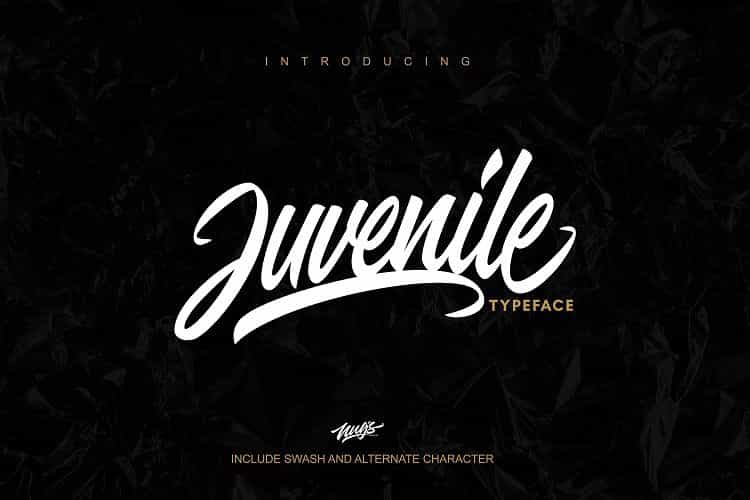
Discover Juvenile Script Font, part of the Brush Calligraphy collection—a versatile and unique font perfect for adding a personal touch to your projects. Download it for free and enjoy crafting designs with style, from invitations to social media posts. This font is available exclusively for personal use, giving you the freedom to create without limits. Unlock your creativity with Juvenile Script Font today!
Introducing Juvenile Font. The Juvenile is a handwriting typeface with brush-like strokes. It is perfect for logos, t-shirts, product packaging, headers, posters , greeting cards and many other things! and the font in question consists of a whole set of uppercase and lowercase letters together with multi-language support, numbers, punctuation, ligatures and alternatives.